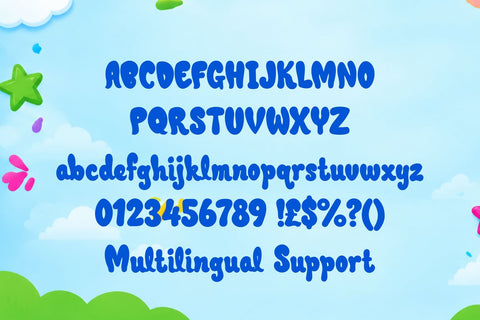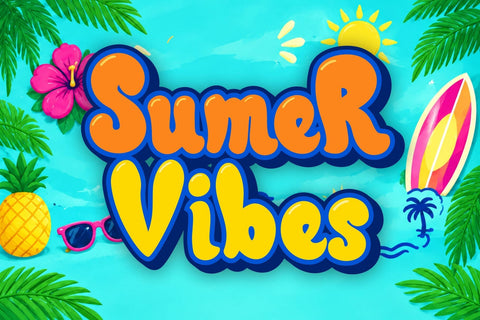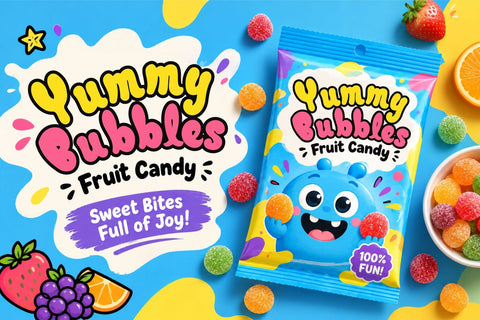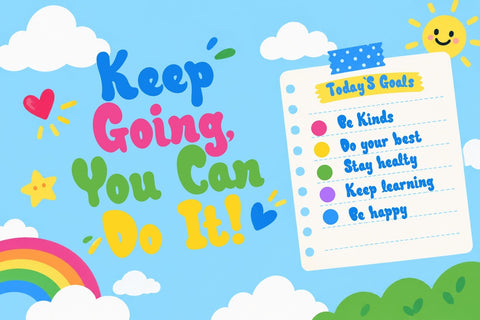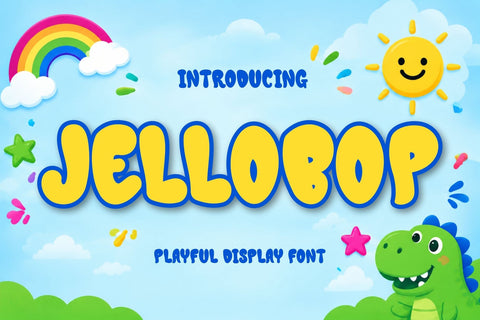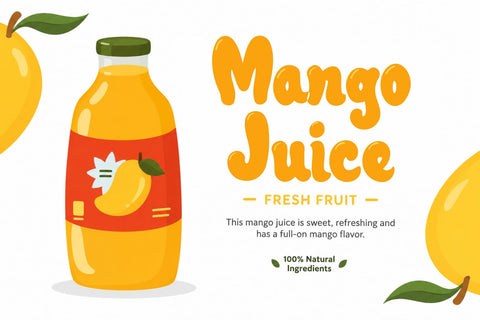
Jellobop – Playful Display Font
Jellobop is a playful display font created to bring cheerful energy, friendly character, and expressive typography to creative projects. Its fun and distinctive letterforms are designed to make headlines stand out while maintaining a clear and approachable appearance. Jelobop is perfect for kids branding, posters, packaging, stickers, social media graphics, invitations, greeting cards, apparel, merchandise, product labels, logos, and colorful promotional designs.
The uppercase characters give headlines a lively visual presence, while the playful construction makes Jelobop especially effective for youth-oriented brands, children's products, creative businesses, and fun lifestyle projects. Multilingual support expands its versatility for international designs, while numbers and punctuation provide a complete set for creating expressive typography across different applications.
Whether used for a cheerful logo, eye-catching headline, playful product packaging, or colorful social media campaign, Jelobop adds a friendly handmade personality that helps designs feel memorable and full of character.